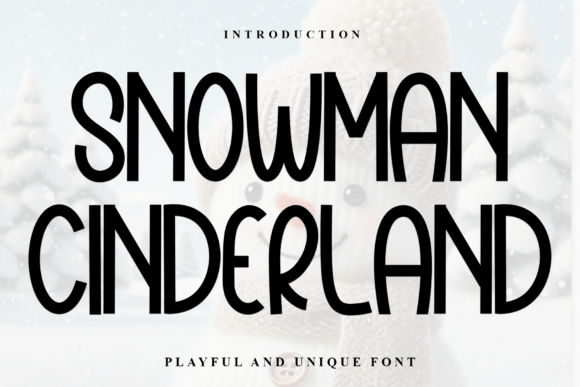
Snowman Cinderland: The Premium Display Font for Scroll-Stopping Visuals
Snowman Cinderland is a premium display font designed to elevate digital marketing campaigns with its elegant strokes and natural feel. As a content creator who spends hours crafting scroll-stopping visuals, I have found that the right typeface can be the difference between a user pausing their feed or scrolling past your brand. Snowman Cinderland stands out among modern fonts because it combines smooth touches with beautiful strokes that instantly convey warmth and sophistication. This unique aesthetic makes it an ideal choice for brands looking to establish a distinct visual identity across social media platforms, email headers, and promotional banners.
Snowman Cinderland for YouTube Thumbnails and Video Content
In the competitive world of video marketing, Snowman Cinderland serves as a powerful tool for increasing click-through rates on YouTube thumbnails and video series covers. The font's high-contrast design ensures that titles remain legible even when viewed on small mobile screens where most users consume content. When you pair Snowman Cinderland with vibrant background images, the smooth touch of the letterforms creates a professional polish that signals quality to your audience before they even click. For creators producing seasonal content, holiday specials, or product launches, this display font adds a layer of personality that generic sans-serif options simply cannot match. By integrating these beautiful strokes into your video branding, you build a consistent visual language that helps viewers instantly recognize your channel in their subscription feeds.
Snowman Cinderland for Social Media Banners and Ad Campaigns
Digital advertisers know that Snowman Cinderland excels at grabbing attention within the split-second window of a social media banner or paid ad. Whether you are designing a Facebook carousel, an Instagram story highlight cover, or a LinkedIn promotional graphic, the font's natural feel allows your message to resonate emotionally with potential customers. The distinct character of this display font works exceptionally well for short, punchy headlines like "Flash Sale," "New Collection," or "Limited Offer." Unlike standard web fonts that can look flat and corporate, Snowman Cinderland brings a creative flair that breaks through the visual noise of crowded feeds. When used correctly, these beautiful strokes guide the eye directly to your call-to-action button, improving the overall effectiveness of your marketing communication strategy.
Snowman Cinderland for Brand Identity and Logo Design
Building a memorable brand requires more than just a logo; it demands a cohesive typographic voice, and Snowman Cinderland provides that signature style for businesses seeking a sophisticated image. Many marketers use this font to create custom logo marks or to anchor the main headline of a website landing page. The smooth touch of the letters conveys trustworthiness and elegance, which is particularly effective for lifestyle brands, boutique shops, and creative agencies. When you incorporate Snowman Cinderland into your brand assets, you ensure that every touchpoint, from business cards to email signatures, maintains a unified aesthetic. This consistency reinforces brand recognition, making it easier for your audience to recall your business when they are ready to make a purchase decision.
Snowman Cinderland for Seasonal Promotions and Event Graphics
Seasonal marketing campaigns often require a font that captures the mood of the moment, and Snowman Cinderland delivers a festive yet refined atmosphere perfect for holiday promotions. Its natural feel aligns beautifully with winter themes, Christmas events, New Year celebrations, or any seasonal sale where a touch of magic is needed. Designers frequently utilize this display font for event invitations, webinar banners, and limited-time offer graphics because the beautiful strokes add a decorative element without sacrificing readability. When creating a sense of urgency or excitement for a product launch, using Snowman Cinderland as the primary headline type helps differentiate your campaign from competitors who rely on standard typography. It transforms a simple announcement into a visually compelling invitation that audiences want to engage with.
Snowman Cinderland for Email Headers and Newsletter Design
Email marketing remains one of the highest ROI channels, and Snowman Cinderland can significantly enhance the open rates and engagement metrics of your newsletters. By placing this font in the header or subject line preview text, you create a visual hook that encourages recipients to dive into your content. The smooth touch of the letters ensures that your message feels personal and curated rather than automated and generic. For content creators sending out weekly updates, product teasers, or inspirational quotes, Snowman Cinderland adds a layer of editorial quality that elevates the perceived value of your information. When paired with clean body text, this display font creates a striking hierarchy that makes scanning your email effortless and enjoyable.
Snowman Cinderland for Pinterest Pins and Blog Headers
Visual search engines like Pinterest demand high-quality imagery with clear, attractive typography, and Snowman Cinderland is perfectly suited for creating viral-worthy pins and blog post headers. The font's ability to hold attention in a vertical layout makes it an excellent choice for infographics, recipe cards, travel guides, and DIY tutorials. When you combine the beautiful strokes of this display font with rich photography, you create a pin that stands out in the endless scroll of user-generated content. For bloggers and affiliate marketers, using Snowman Cinderland consistently across your site's featured images builds a recognizable brand presence that drives traffic back to your main domain. It proves that a premium font can be a strategic asset in driving organic growth and increasing dwell time on your pages.
Optimizing Readability and Font Pairing Strategies
To get the most out of Snowman Cinderland, it is essential to understand how to balance its decorative nature with functional readability. While the font is stunning for headlines, logos, and short text blocks, it should not be used for long paragraphs of body copy. The best practice is to pair Snowman Cinderland with a clean sans-serif font for captions, subheadings, or instructional text. This contrast ensures that your design remains accessible and easy to read across all devices, from desktop monitors to mobile phones. For a more editorial look, you might pair it with a classic serif font to create a timeless, magazine-style aesthetic. Remember that the goal of any display font is to support your message, not obscure it, so always test your combinations in real-world scenarios like mobile previews and thumbnail sizes.